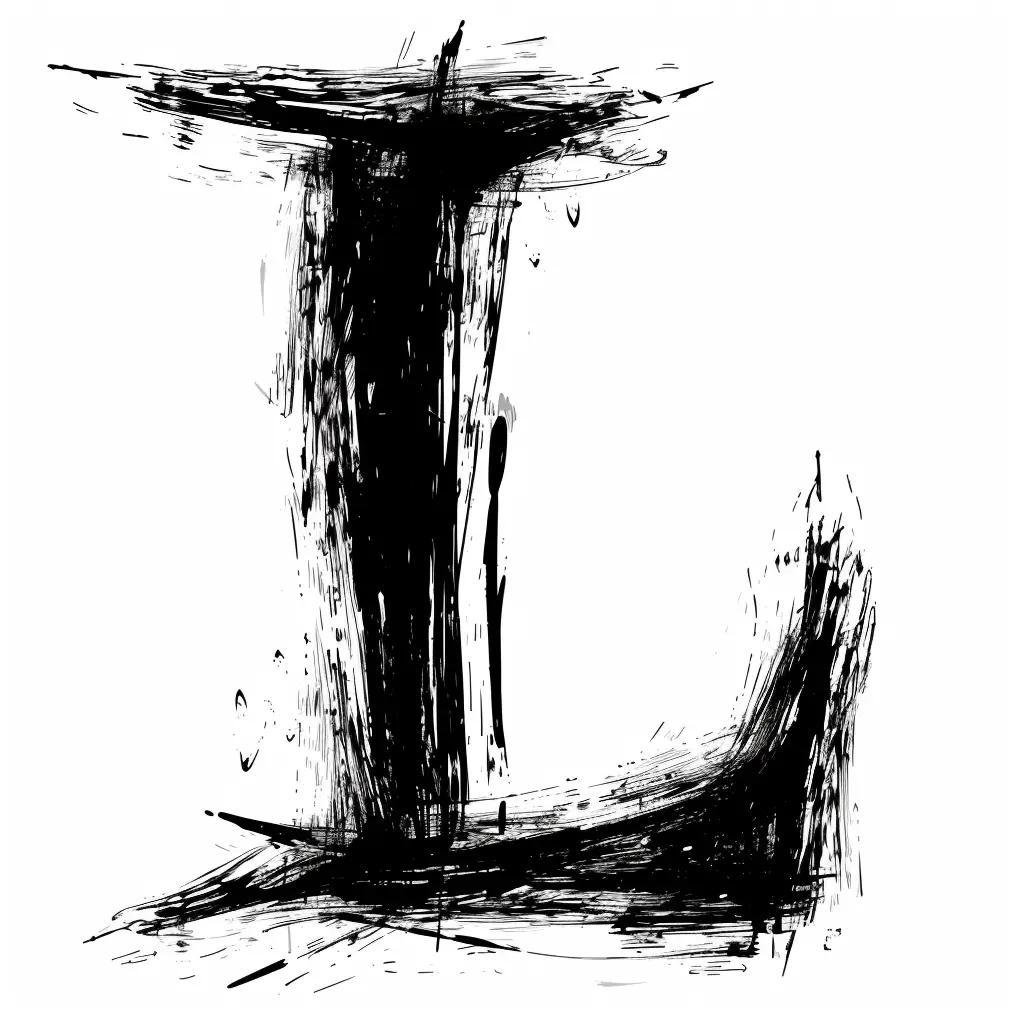
This abstract black-and-white artwork features a bold, vertical central form with rough, expressive brushstrokes, set against a stark white background. The composition includes dynamic, chaotic lines and splatters that create a sense of movement and texture, emphasizing a raw, gestural style. The high contrast between the deep black and bright white highlights the energetic, spontaneous nature of the piece.